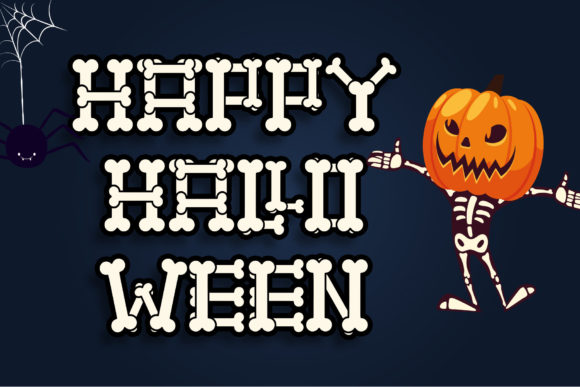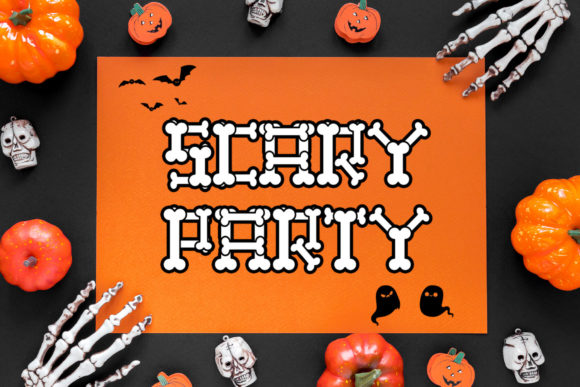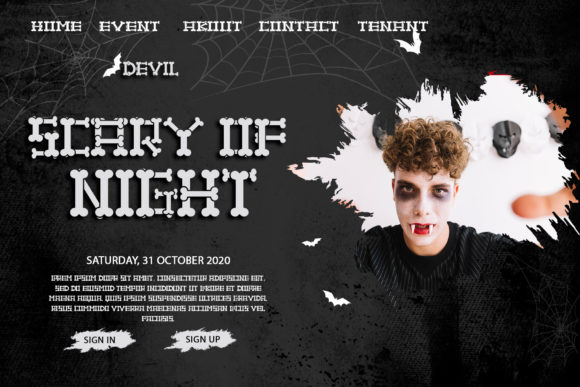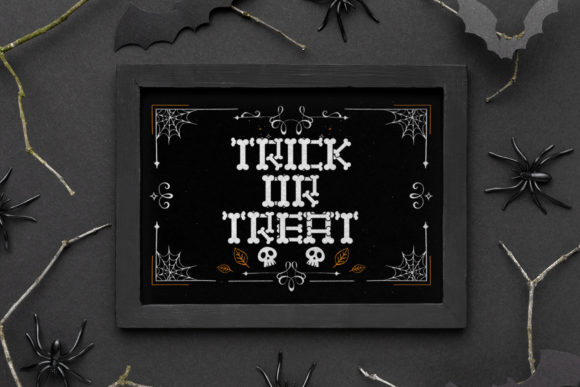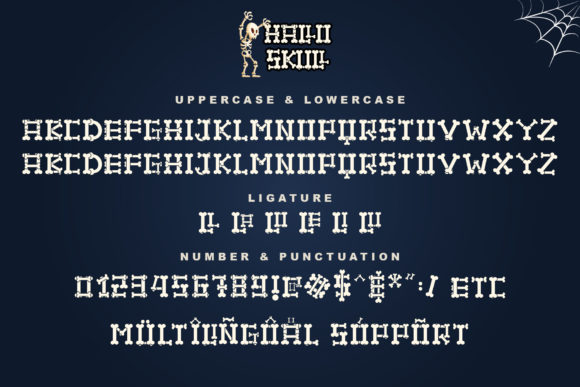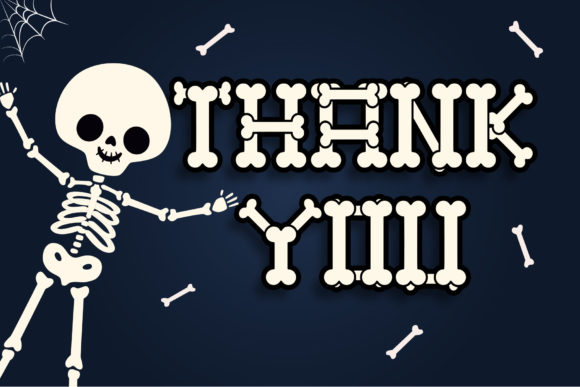
Hallo Skull Font – Free Download
Introduction to Hallo Skull Font
Hallo Skull is a fun and spooky decorative font, featuring characters made out of bones.
It is suitable for each of your party designs or Halloween creation The only limit is your imagination.
Key Features of Hallo Skull Font
Why Choose Hallo Skull Font?
Hallo Skull Font offers exceptional quality and versatility, making it a valuable addition to your design toolkit. Whether you’re creating for personal projects or commercial use, Hallo Skull Font delivers professional results.